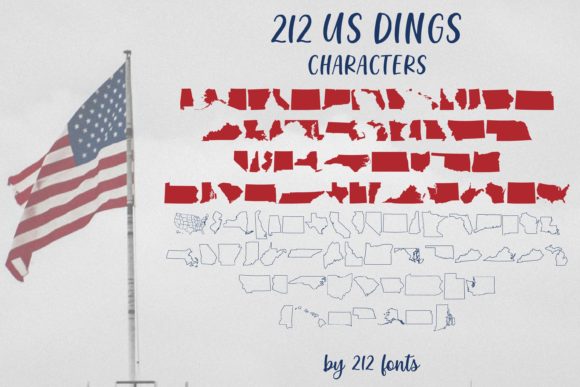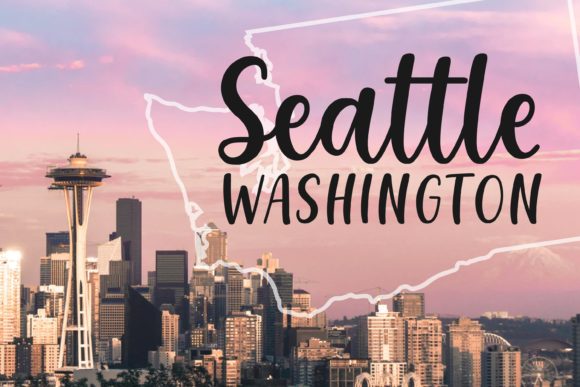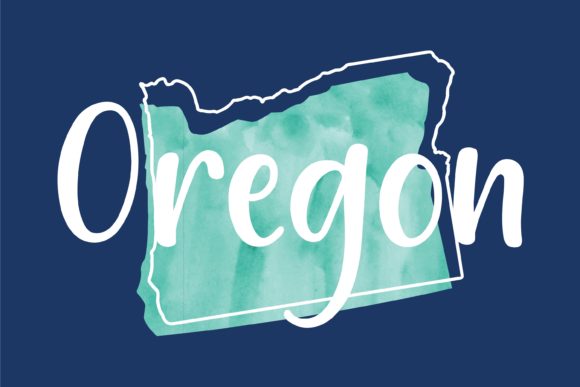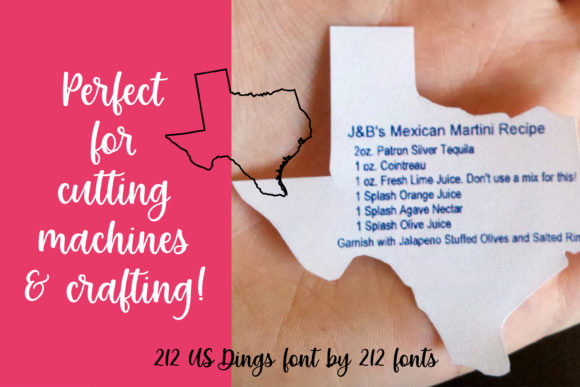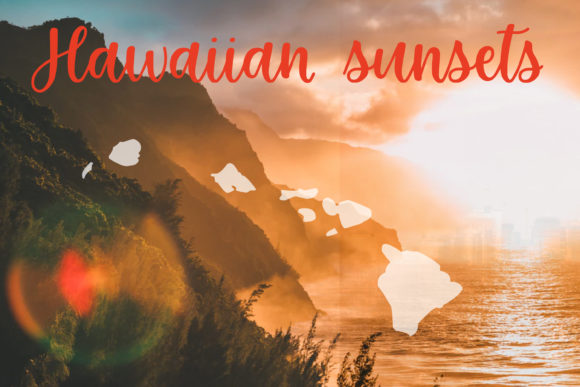
Introducing 212 US Dings Font: A Fun and Versatile Dingbat Font for Designers and Crafters
Are you a designer, crafter, or DIY enthusiast looking for a unique and functional font to enhance your creative projects? Look no further than the 212 US Dings Font! This exciting dingbat font features 102 glyphs of all 50 US states in both solid and outline forms, making it an incredibly handy tool for a wide range of applications.
What is 212 US Dings Font?
The 212 US Dings Font is a specially designed dingbat font that offers a comprehensive collection of glyphs representing all 50 states in the United States. With 102 glyphs in total, this font provides both solid and outline forms of each state, giving users the flexibility to choose the perfect style for their projects.
Key Features of 212 US Dings Font
- 102 glyphs: Includes all 50 US states in both solid and outline forms
- Versatile design: Suitable for various applications, including logo creation, graphic design, crafting, and cutting machines
- Fun and creative: Adds a unique touch to any project
Uses for 212 US Dings Font
The 212 US Dings Font is an incredibly versatile tool that can be used in a variety of creative projects. Here are some ideas to get you started:
- Logo and branding design: Use the font to create custom logos and branding materials that showcase your connection to a particular state or region
- Graphic design: Add a unique touch to your graphics, such as infographics, posters, and flyers, with the 212 US Dings Font
- Crafting: Use the font to create custom vinyl decals, iron-on designs, and other craft projects that require a personal touch
- Cutting machines: Compatible with popular cutting machines, such as Cricut and Silhouette, making it easy to cut out custom designs
- DIY projects: Add a professional touch to your DIY projects, such as wood signs, stencils, and more
Benefits for Designers
For designers, the 212 US Dings Font offers a range of benefits, including:
- Time-saving: No need to spend hours creating custom state glyphs – the 212 US Dings Font has you covered
- Consistency: Ensure consistency across your designs with a single, cohesive font
- Flexibility: Use the font in a variety of design applications, from logos to graphics
Benefits for Crafters
For crafters, the 212 US Dings Font offers:
- Ease of use: Compatible with popular cutting machines and design software
- Customization: Create custom designs with a personal touch
- Variety: Use the font to create a wide range of craft projects, from vinyl decals to wood signs
The 212 US Dings Font is an exciting and versatile dingbat font that offers a comprehensive collection of glyphs representing all 50 US states. With its wide range of applications, ease of use, and fun design, this font is perfect for designers, crafters, and DIY enthusiasts looking to add a unique touch to their creative projects. Download the 212 US Dings Font today and discover a world of creative possibilities!